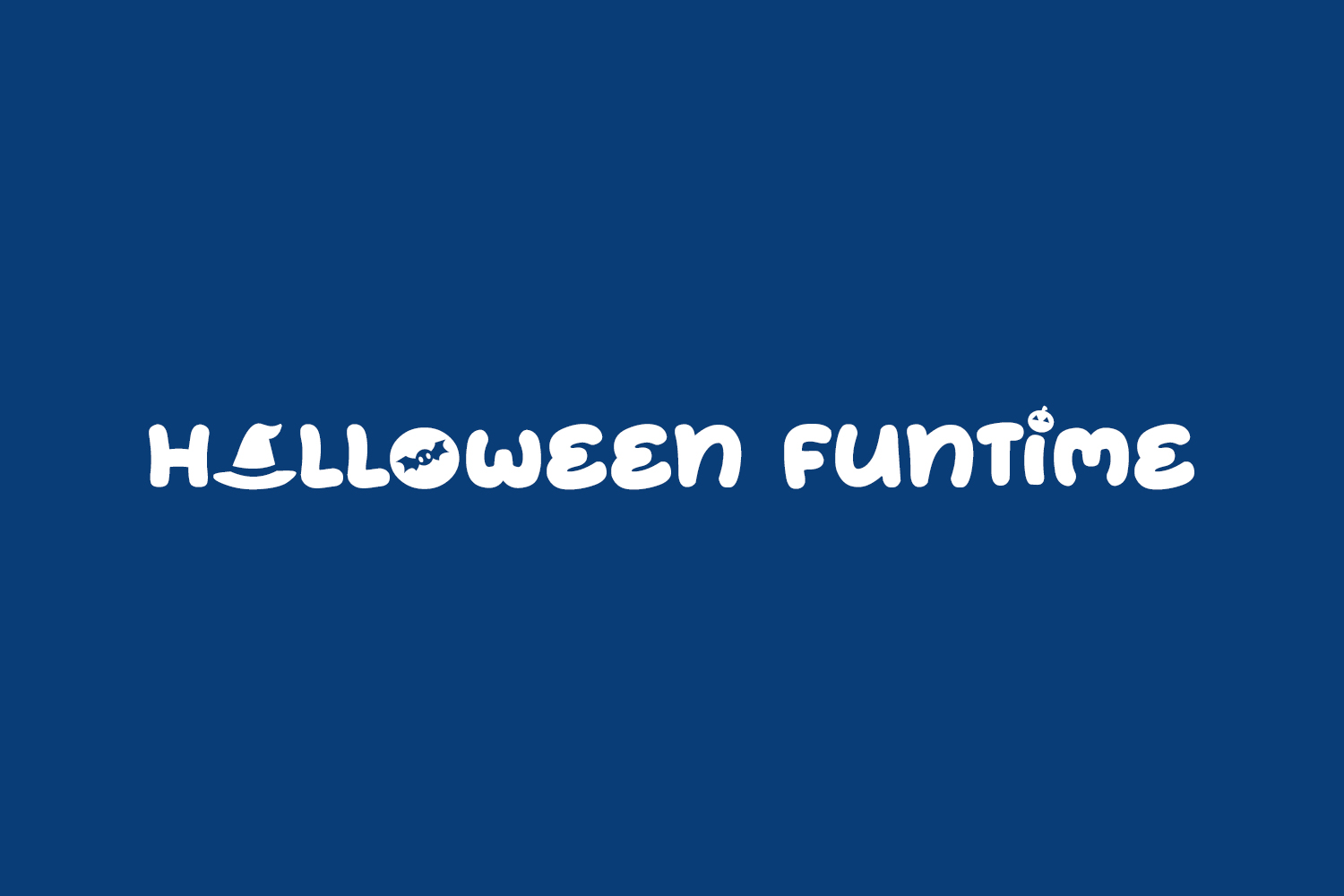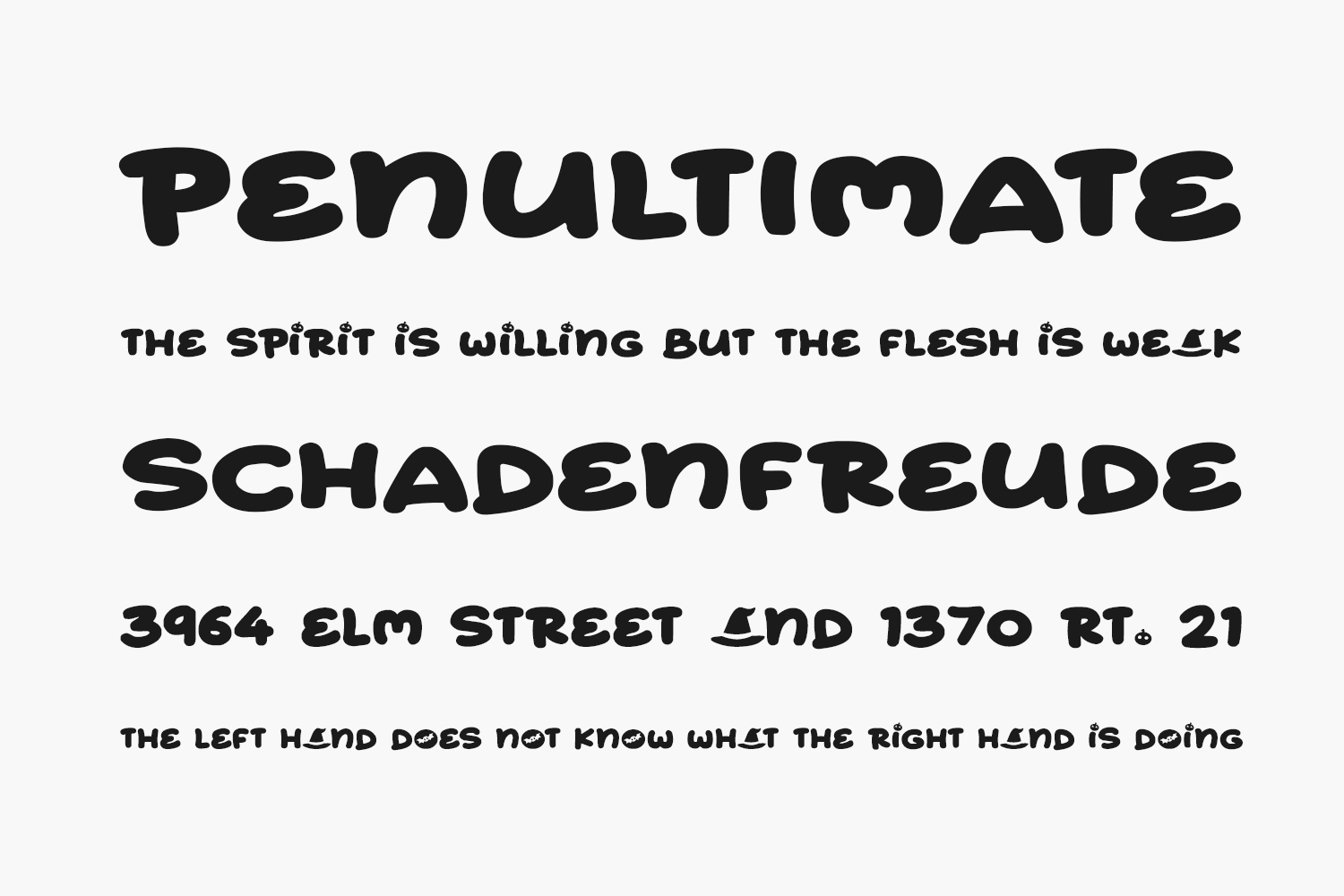
Introducing an incredibly enjoyable and expressive Halloween Funtime Free Font Family, featuring a charming, hand-drawn style. This font incorporates delightful illustrative elements such as bats, witch hats, and pumpkins within select letters, adding a playful touch. Ideal for Halloween festivities and versatile for family-friendly horror-themed projects. Halloween Funtime Free Font Family is free for personal use only. Please purchase the full version for commercial use.